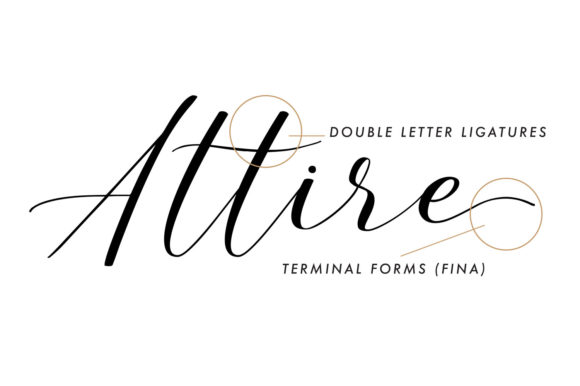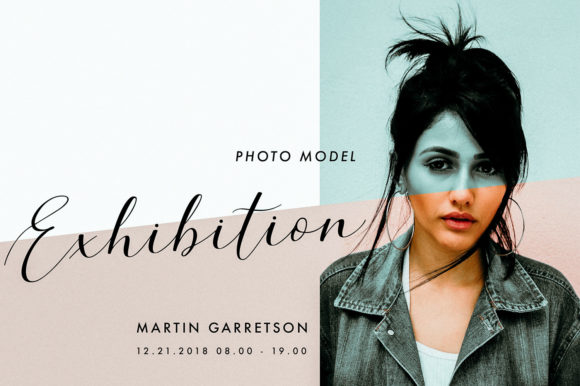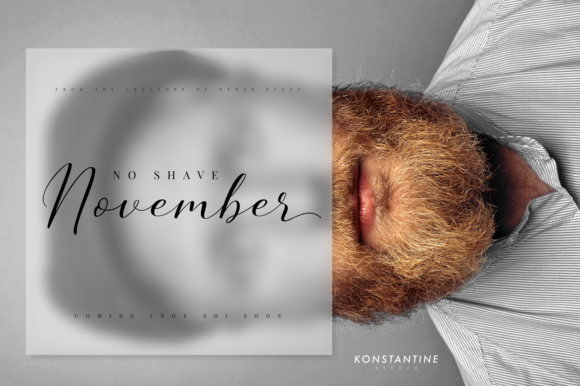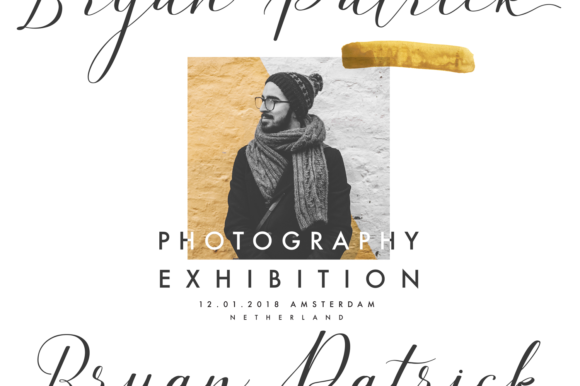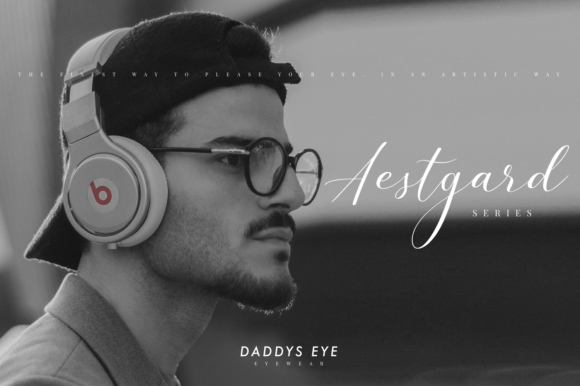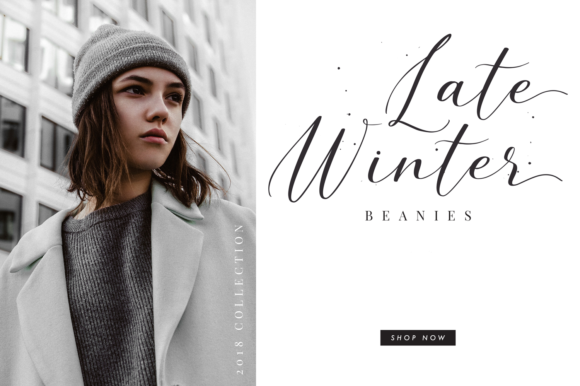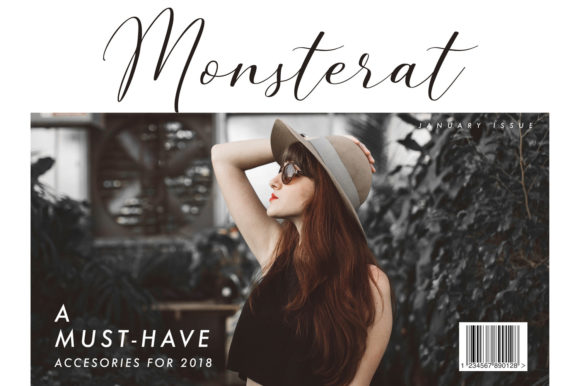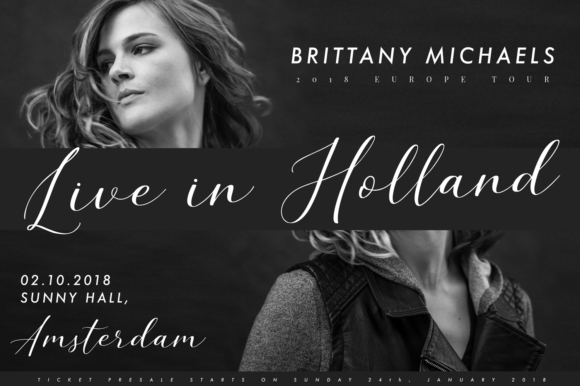
Simple Monologue Font
About Simple Monologue Font
Simple monologue is a beautifully flowing and casual script font. With its contemporary style and fancy characters, this typeface will be a hit with any branding project, logo design, journal, or glamorous magazine.